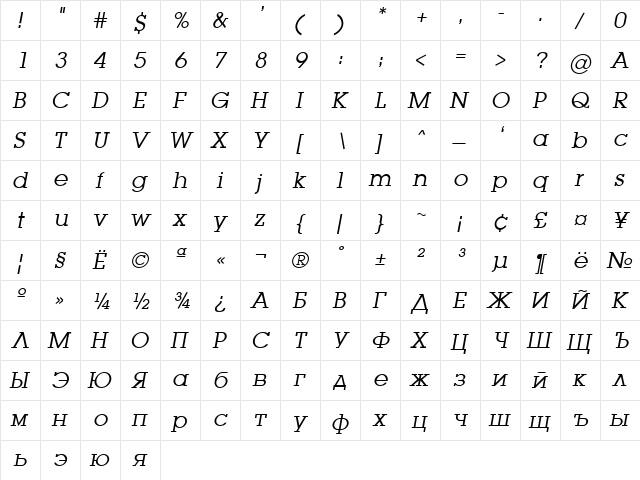
LugaBook Book Oblique
Design Context for LugaBook Typeface
LugaBook offers clean, dependable letterforms without strong stylistic allegiance, making it a practical choice for designers who need flexibility. Its italic angle brings a sense of urgency and motion to the letterforms.